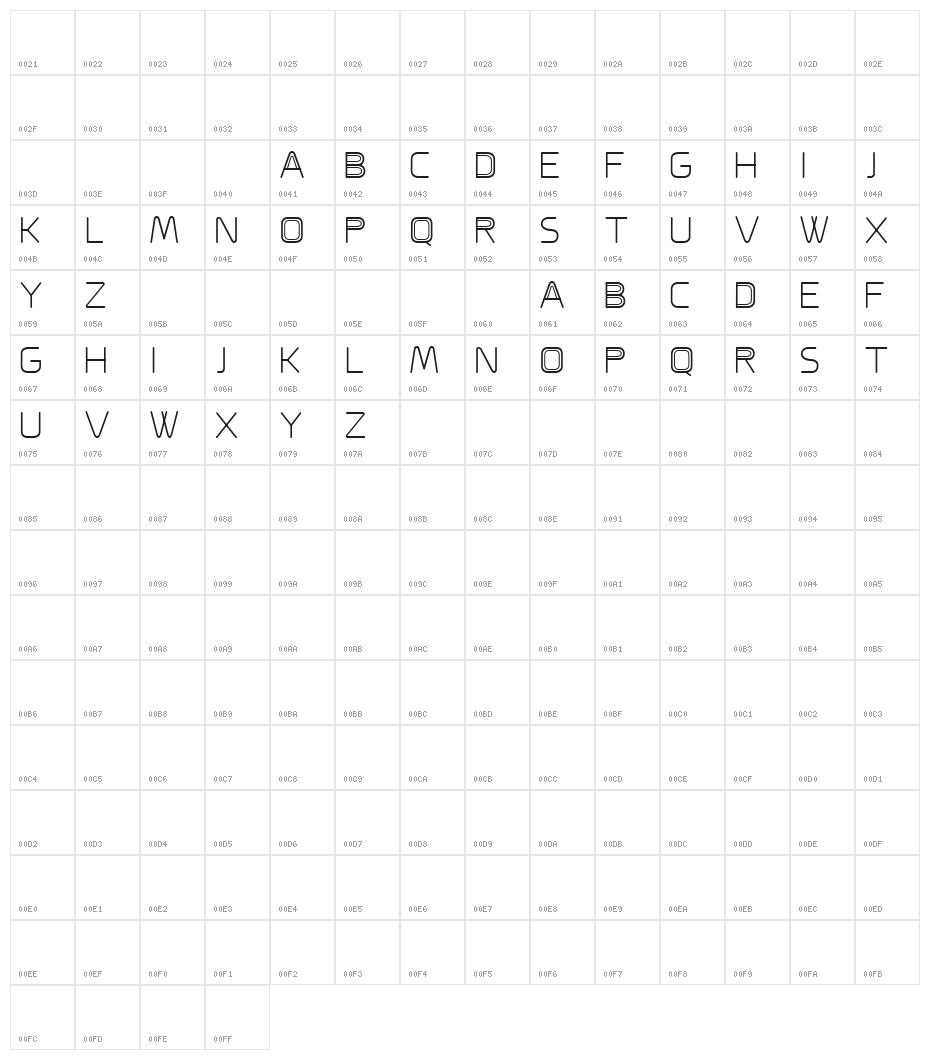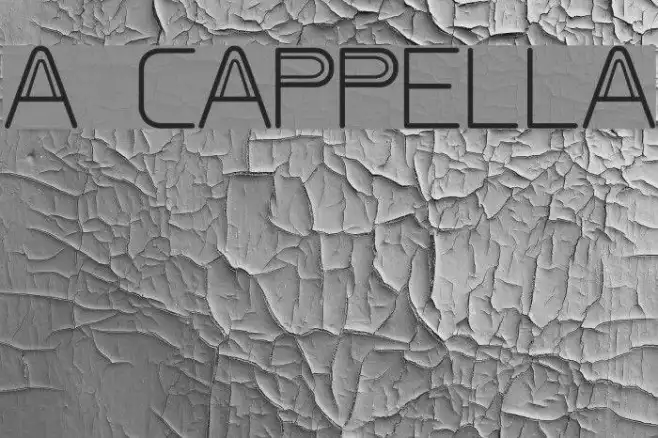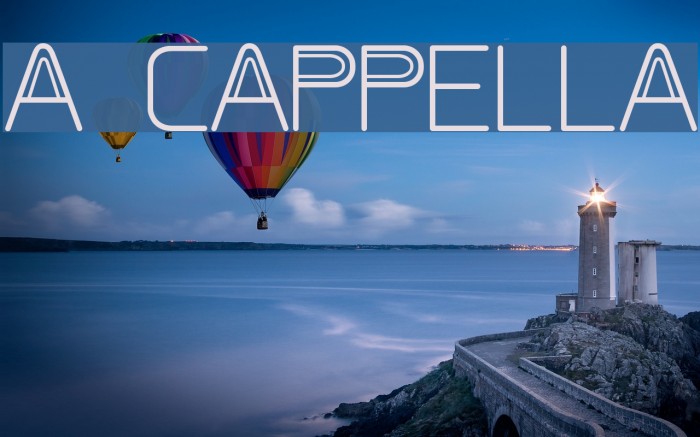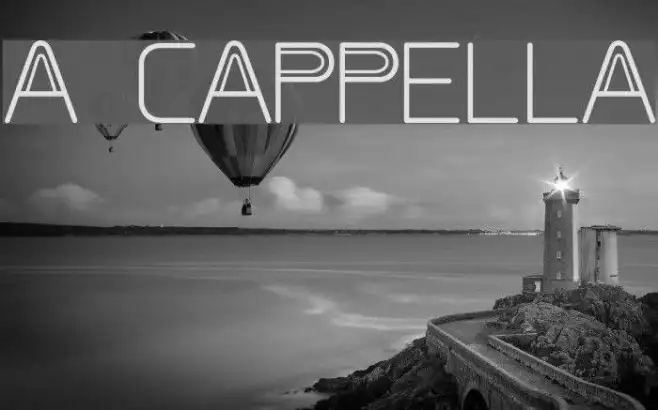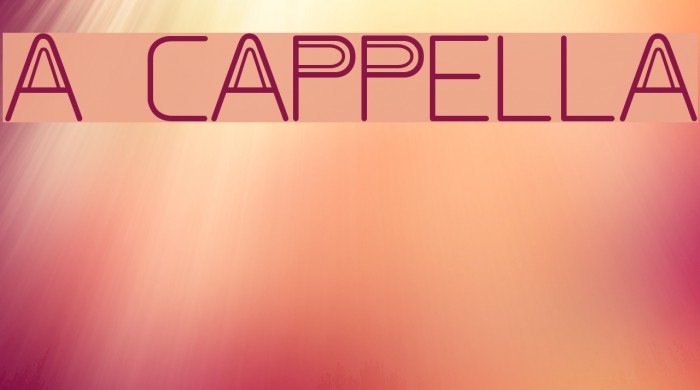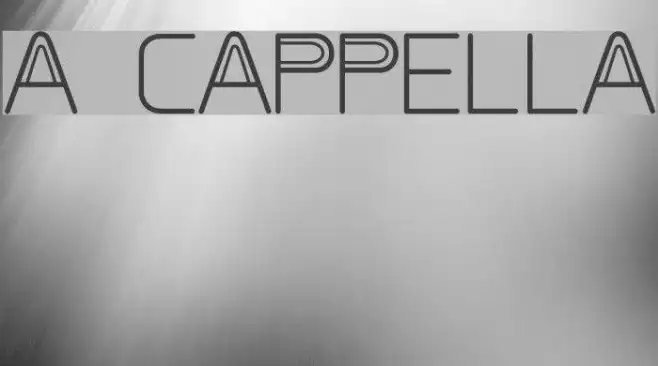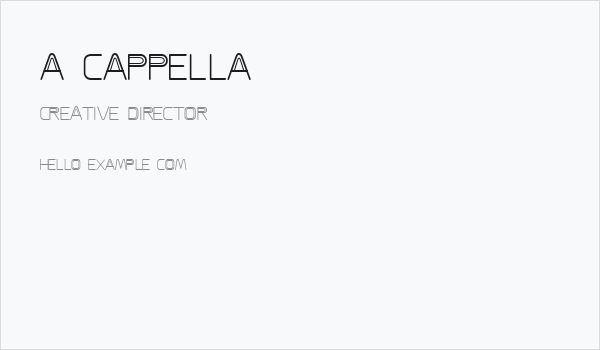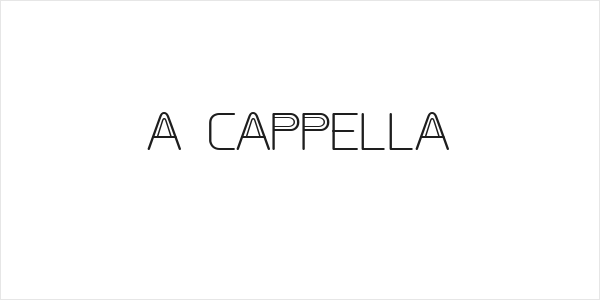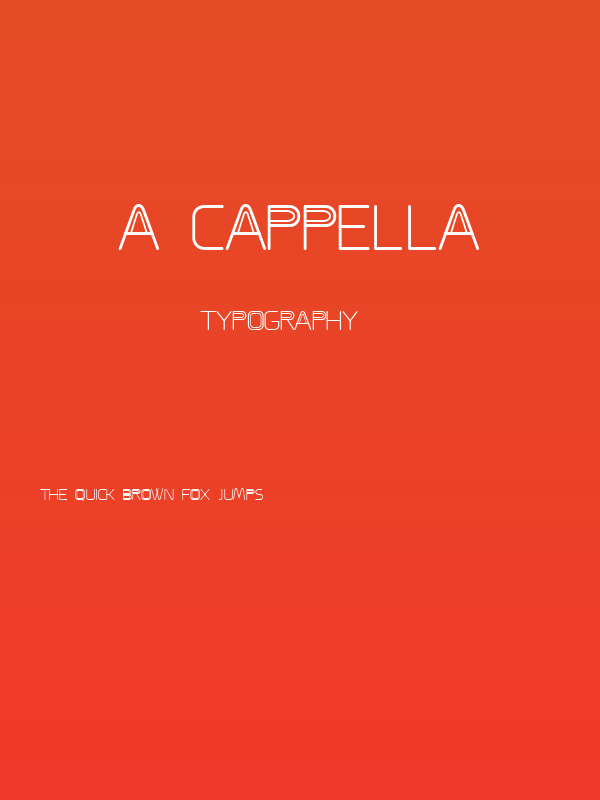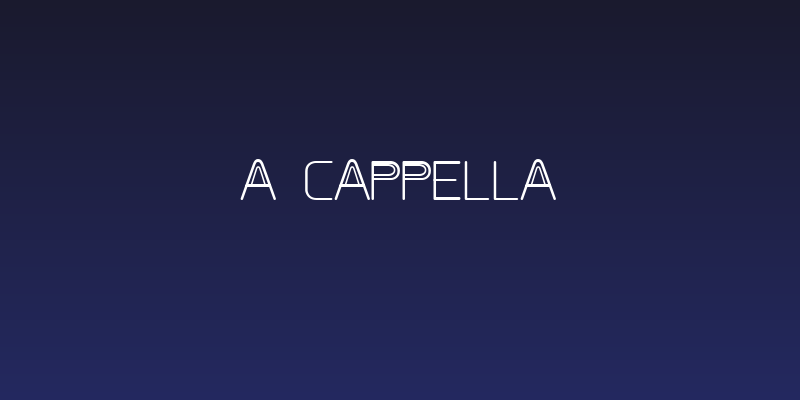
A CAPPELLA Font
A CAPPELLA Description
This font features a modern and sleek design with a geometric and minimalist aesthetic. The uppercase letters are crafted with clean, straight lines and rounded edges, giving it a futuristic and technical look. The characters are uniform in height, and the spacing between them is consistent, creating a harmonious and balanced appearance. The font's simplicity and clarity make it highly legible, even at smaller sizes. Its unique style is characterized by the absence of serifs and the presence of open counters, which contribute to its contemporary feel. This font is versatile and can be used in various design contexts where a modern and clean look is desired.
| Proposed Projects | Ideal for tech branding, modern web design, product packaging, and futuristic posters. |